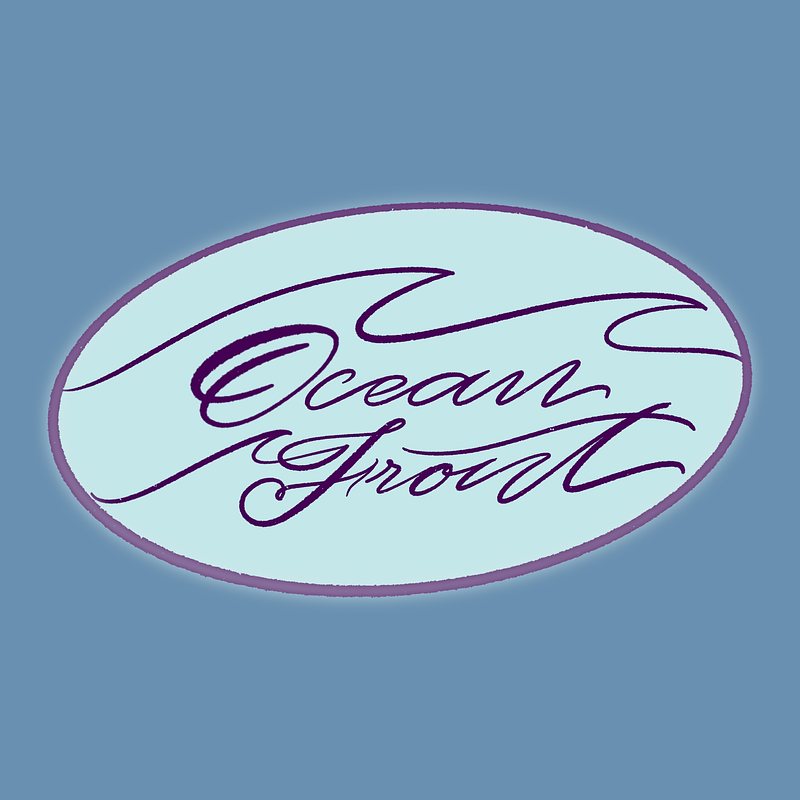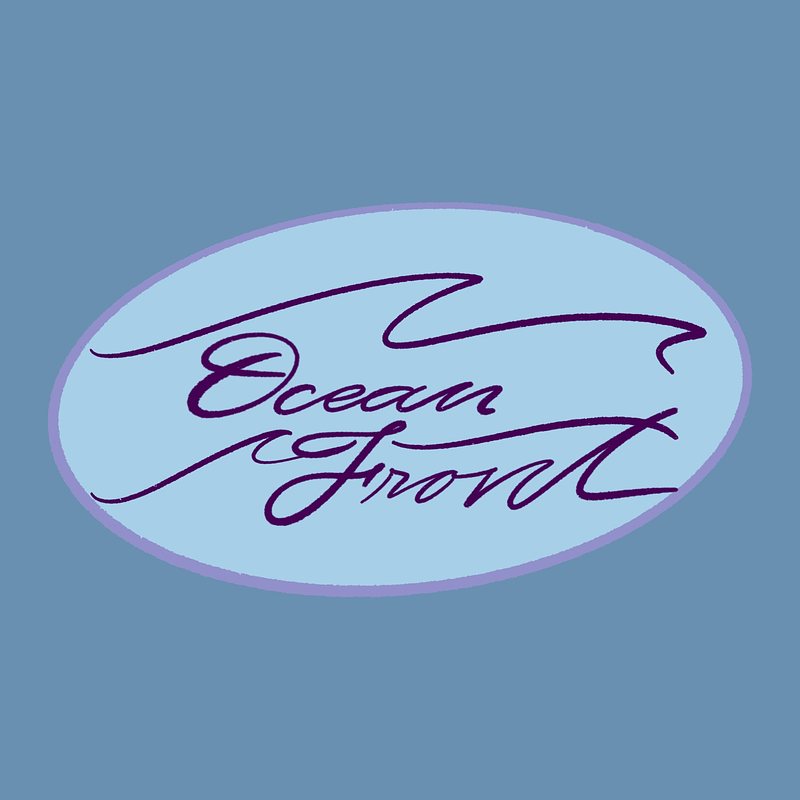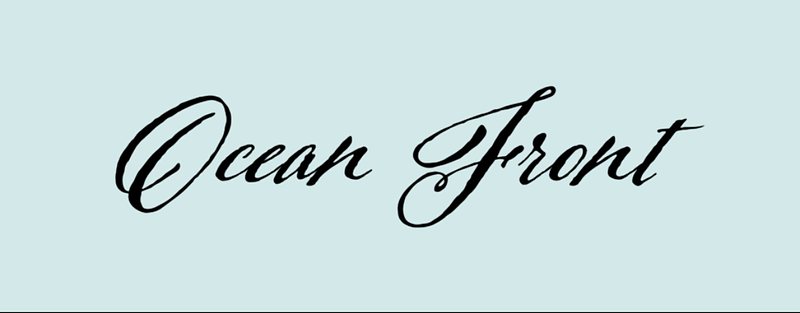
The Commission 00004-Ocean Front Leather Bags by Aaron
Technically, it’s not a commission since I was the one who saw Aaron's post about his latest product line, "Ocean Front," and loved the name so much that I couldn't resist designing a lettering for it.
When I saw the words "Ocean Front," the image of waves immediately came to mind. The name should flow like the waves, so I used the typeface Aaron had already visualized, made it more fluid, and adjusted the slant to align with the waves.
I thought my design could serve as a springboard for him to develop further, so I sent him my idea. To my delight, he liked it so much that he wanted to use it. Although excited, I realized there were many flaws in my original design, so I took the time to improve it a bit more.
I’m very pleased with the final design and hope his product will be a major success!